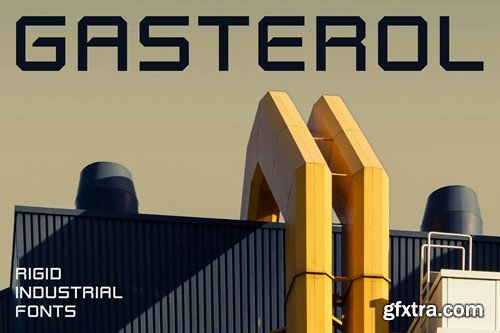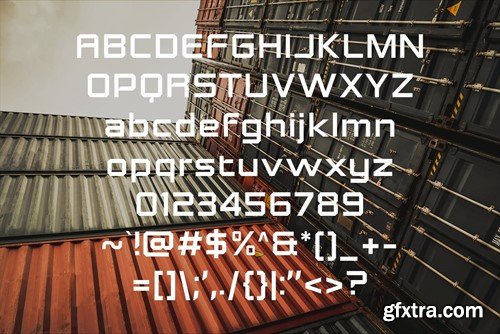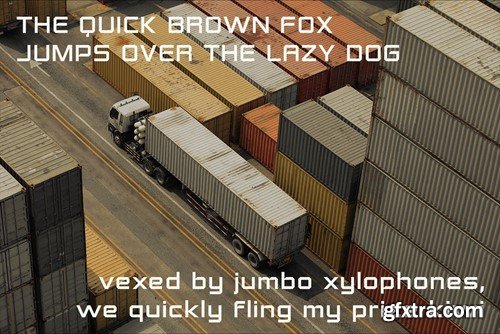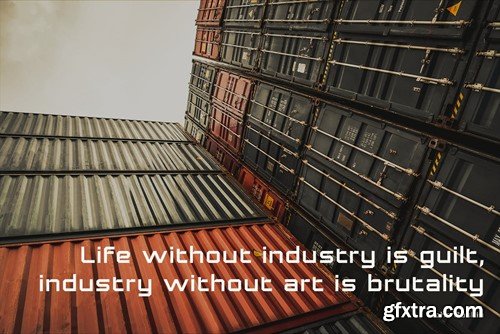
Imagine a font as tough as the harbor itself. Weathered by the elements, yet standing strong. That's the power of Gasterol, the industrial steel container font, built to make your message unforgettable. Inspired by the raw power of industry, Gasterol isn't for the faint of heart. It's for brands that demand attention. Brands like: And anyone who demands a bold statement. What's Inside: